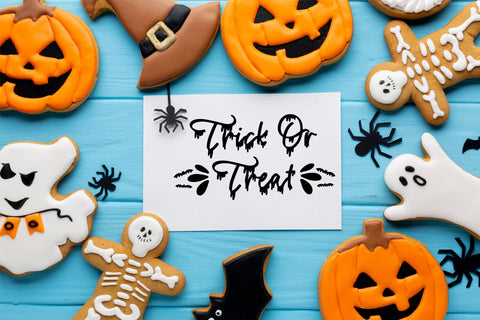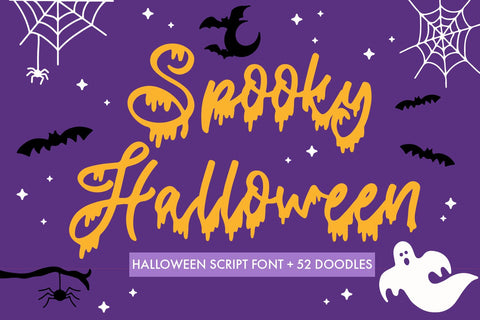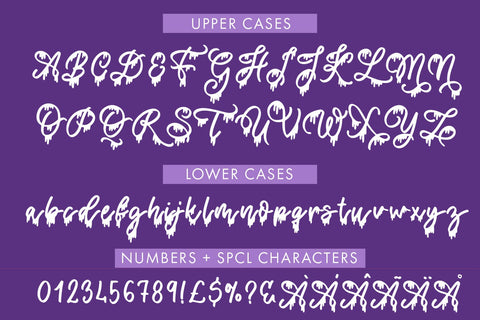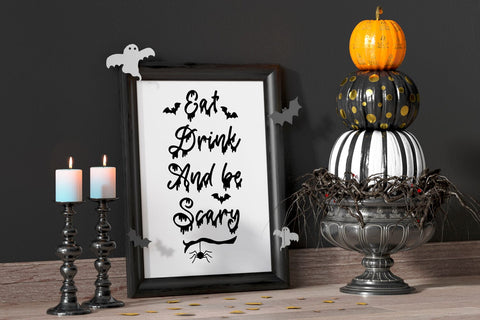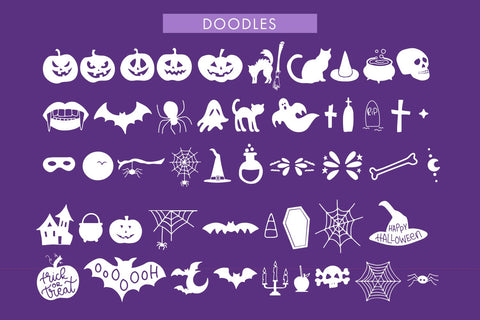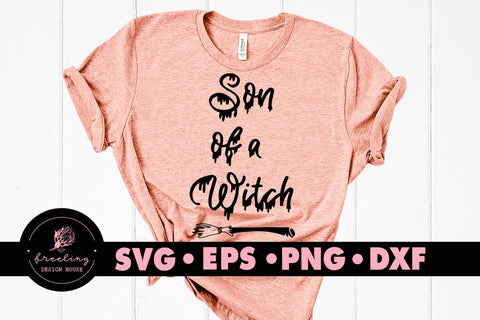
Spooky Halloween- A Dripping Script Font With Bonus Doodles
Introducing Spooky Halloween Handwritten Script Font with Dripping Letters and Bonus Doodles!
Are you ready to add a touch of eerie elegance to your Halloween designs? Look no further than Spooky Halloween, the ultimate handwritten script font that will send shivers down your spine! This one-of-a-kind font captures the essence of the spookiest season with its hauntingly beautiful style and creepy drippings on every letter.
- Spooky Halloween - Comes with Uppercase A-Z and lowercase a-z letters, 0-9 numbers, stylistic alternates, limited punctuation and supports Western European Languages
- Spooky Halloween Doodles - Bonus Doodles In A Halloween Theme